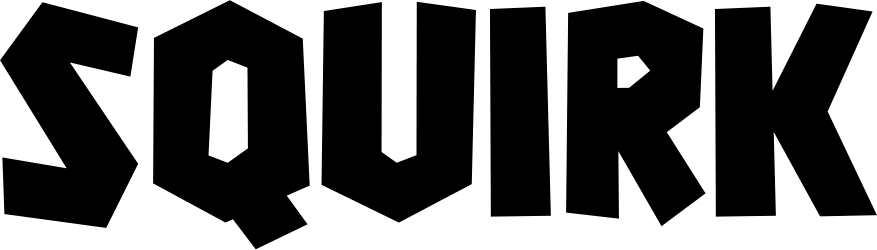
Squirk Font
A sharp firm outline is not something you’d expect from a cartoon font like Squirk, but still, it manages to bring a combination of playful vibes and strong distinguished quality to your text.
That’s exactly what makes this title block font and its all-caps letterforms the ultimate option for your digital banners, games, clothing, posters, and so on, especially if you want to make sure your fun design receives the intended attention.